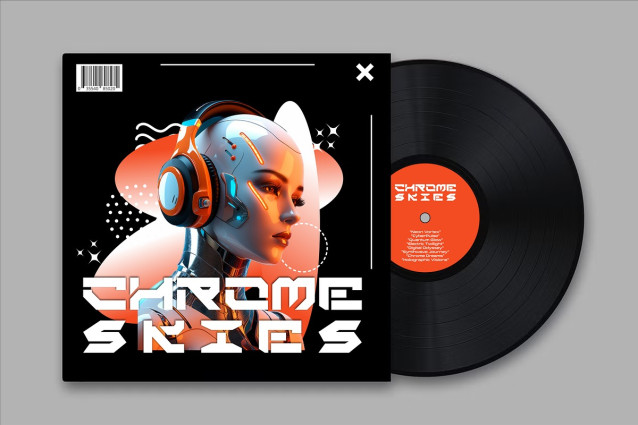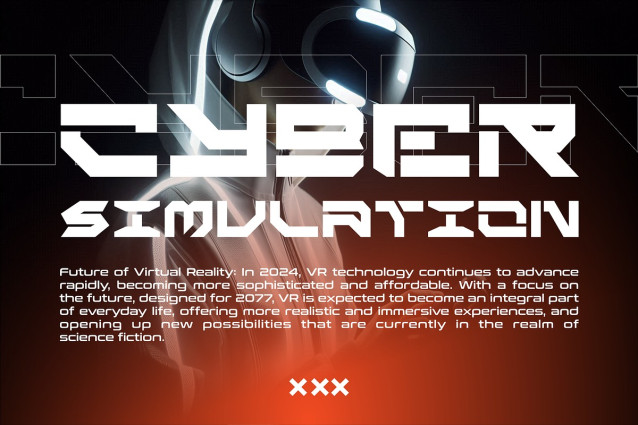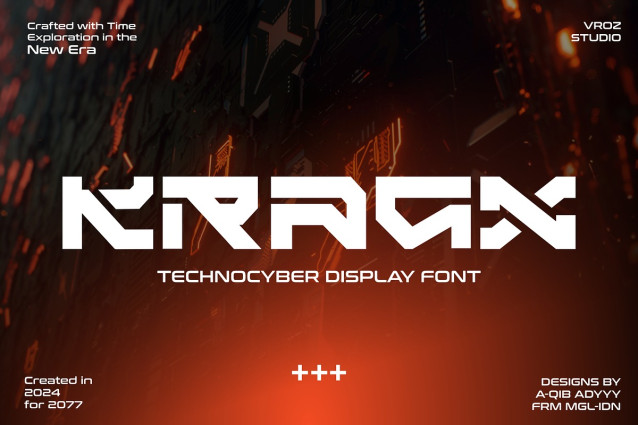
Kragx Technocyber Font
Kragx Technocyber Font is inspired by a futuristic vibe, especially cyberpunk and futuristic technology. The typeface is based on simple and futuristic tech shapes, making it a hi-tech project created by VROZ STUDIO in 2024.
Kragx Font is perfect for headlines, billboards, magazines, websites, titles, posters, branding, thumbnails, t-shirt designs, streetwear designs, and creative logos, or any project in need of a futuristic touch. With this beautiful futuristic display font, you can truly make your project stand out from the rest. Check out the previews above to get some inspiration on how to use it.